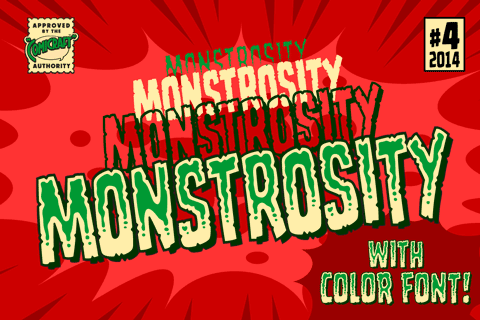
Monstrosity
It breathes fire and its leathery hide is impervious to rocket propelled grenades and drone warheads! MONSTROSITY is a font that destroys everything in its path. Is it a terrifying sound effect font or does it just want to be loved? One thing’s for sure – no one is safe!
• Three weights with alternate uppercase alphabets
Monstrosity – Heavy Kaiju & Monster Action Display Font
Obliterate the competition with Monstrosity, a massively heavy action display font built to dominate the page. With a rough, leathery texture inspired by classic Kaiju and giant monster movie posters, this aggressive typeface is ideal for explosive comic book sound effects, tabletop RPG rulebooks, extreme sports branding, and drone combat video games. It features three alternate uppercase weights, comprehensive European language support, and a high-impact Color Font version. Download Monstrosity now!